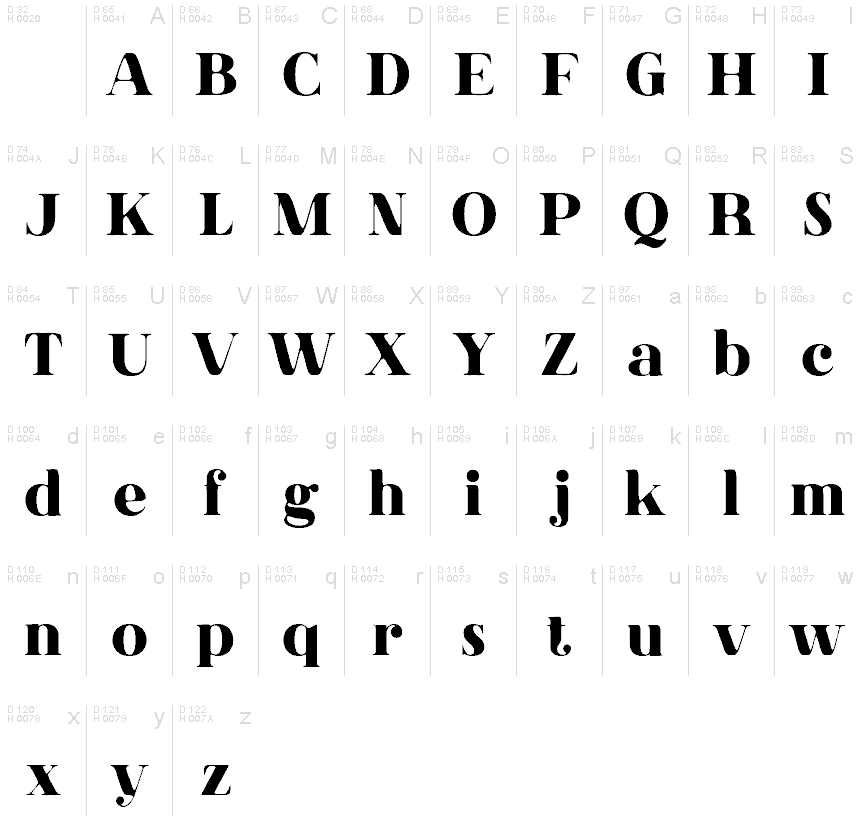
CS Agnes Drawn font designed by Craft Supply Co. is a bold serif font with an elegant and classic style. This refined typeface has delicate details in every inch with thin serifs on its wide letters. Formal and stylish, the outline elements of this vintage decorative serif font deliver an ornate feel that will certainly appeal to those visually inclined.
Free for you to use, CS Agnes Drawn is versatile whether applied in poster designs, branding projects, book covers or titles, magazines, logos, ads or product packaging. You can also use it to create ribbon designs or fashion-related business cards – there is no limit!